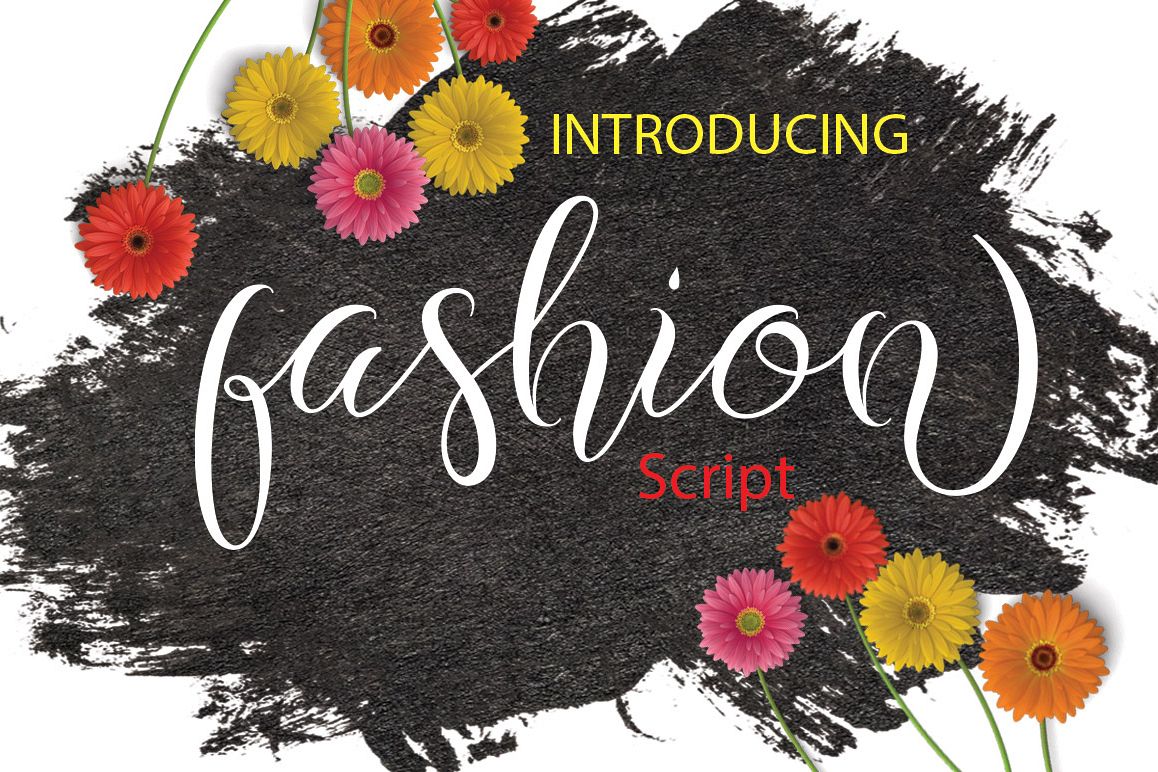
Introduce my new font Fashion is a unique blend of classic and modern font. imperfect style ups and downs, like a dance letters, smooth, clean and simple. Fashion perfect for wedding, event, invitation, escort card, table number, header menus, display, logos, slider blog, custom address, stamps, packaging, greeting card, etc. Fashion including alternate glyph and beautiful swirl in a font including stylistic sets, Ligatures etc. The Open Type features can be accessed by using Open Type savvy programs such as Adobe Illustrator CS, Adobe Indesign & CorelDraw X6-X7 and Microsoft Word. And this Font has given PUA unicode (specially coded fonts). so that all the alternate characters can easily be accessed in full by a craftsman or designer. Files Include : -Fashion Script.(otf & ttf) -Webfont (eot, woff, HTML) Features: -Basic Latin A-Z and a-z-Numbers-Symbols -Stylistic Set -Ligatures -Fashion Script 470 Glyphs -PUA Encode -Latin Pro Support Character Thank You!